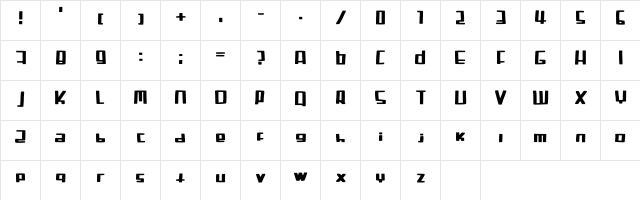
Sandman Regular
Design Context for Sandman Typeface
Sandman is a composed and adaptable typeface that performs quietly and consistently across a wide range of design contexts.